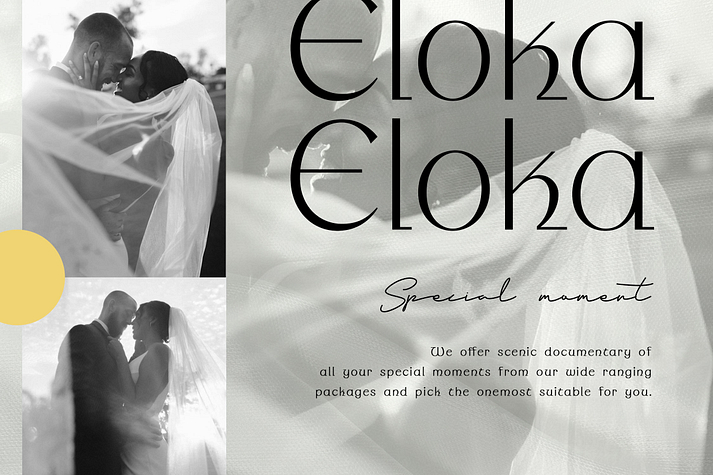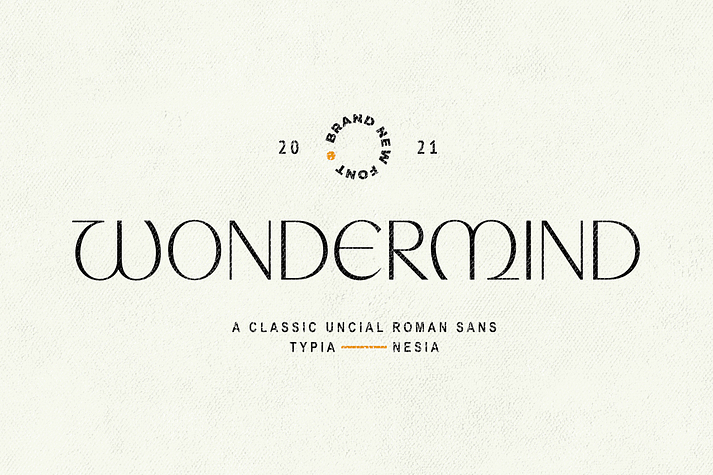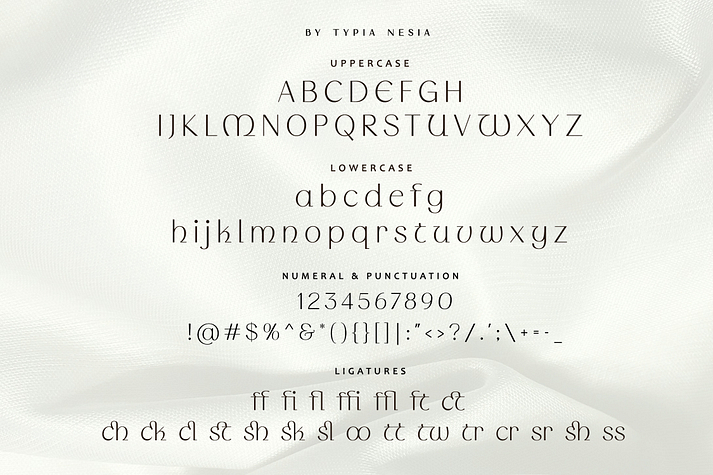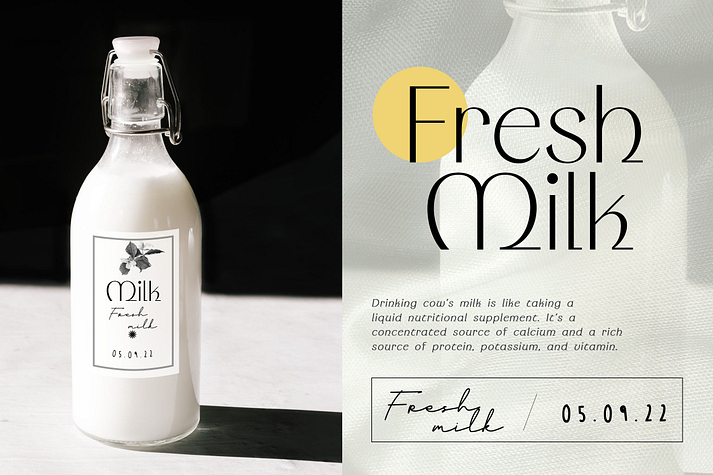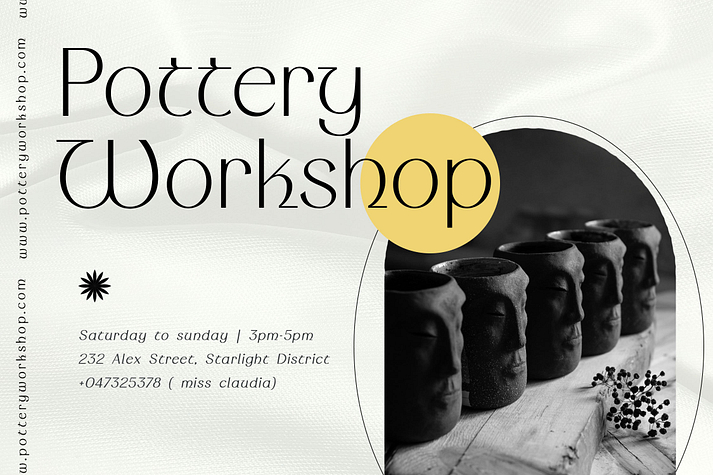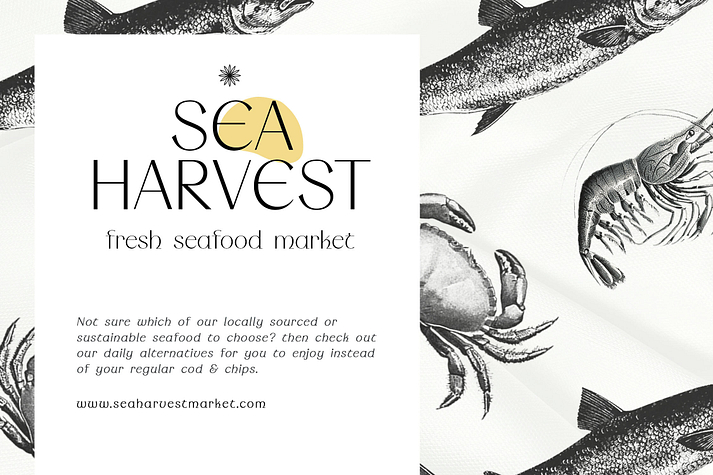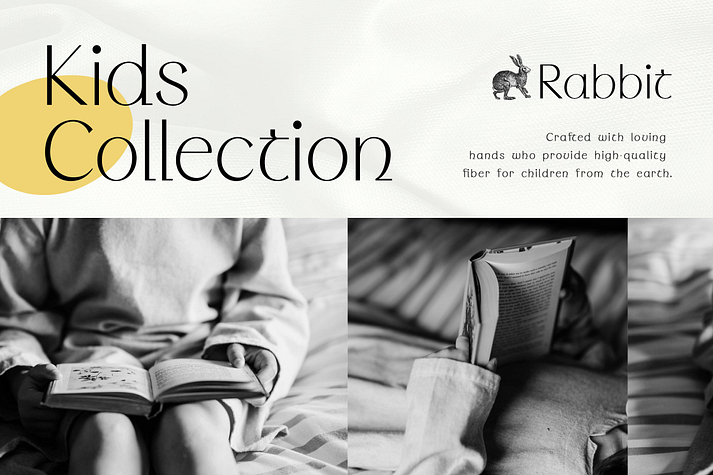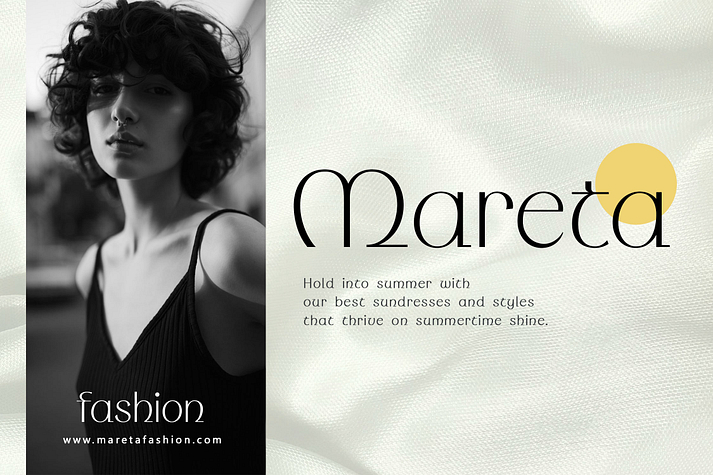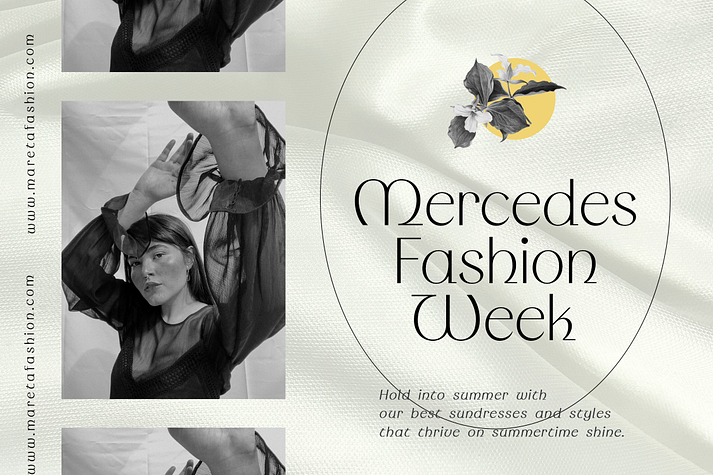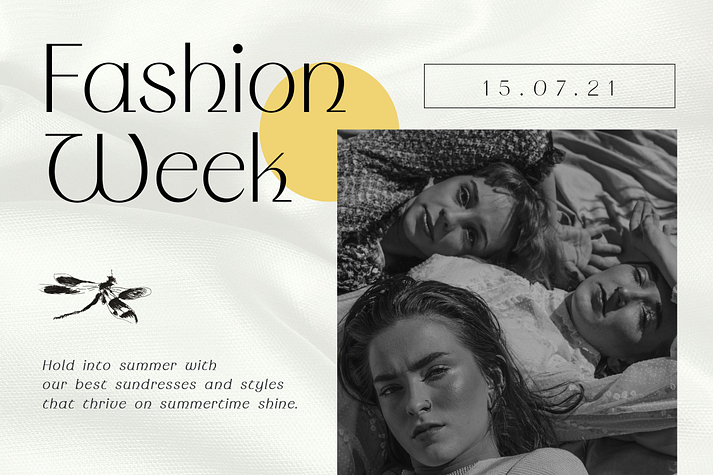
Wondermind
Wondermind is a font family published by Typia Nesia.
Wondermind - Classic Uncial Roman Sans Serif.
Wondermind font is perfect for your up coming projects. Such as luxury logo and branding, classy editorial design, woman magazine, cosmetic brand, fashion promotional, art gallery branding, museum, historical of architectural, boutique branding, stationery design, blog design, modern advertising design, card invitation, art quote, home decor, book/cover title, special events and any more.